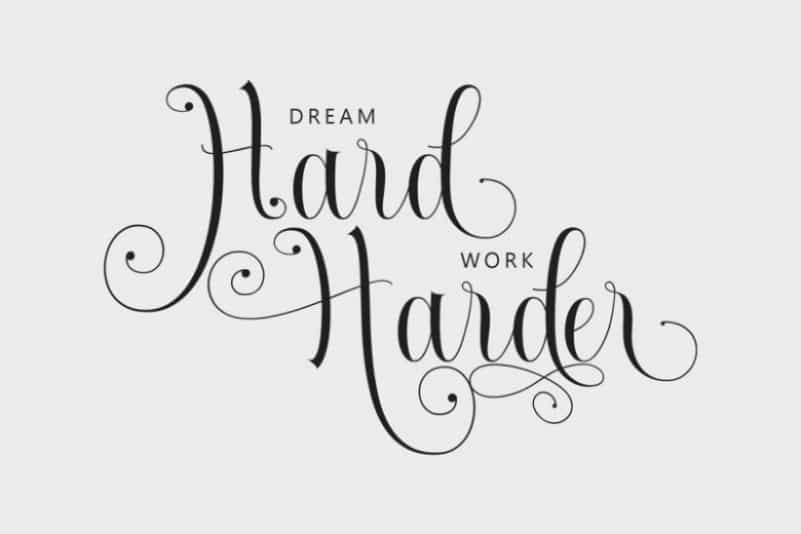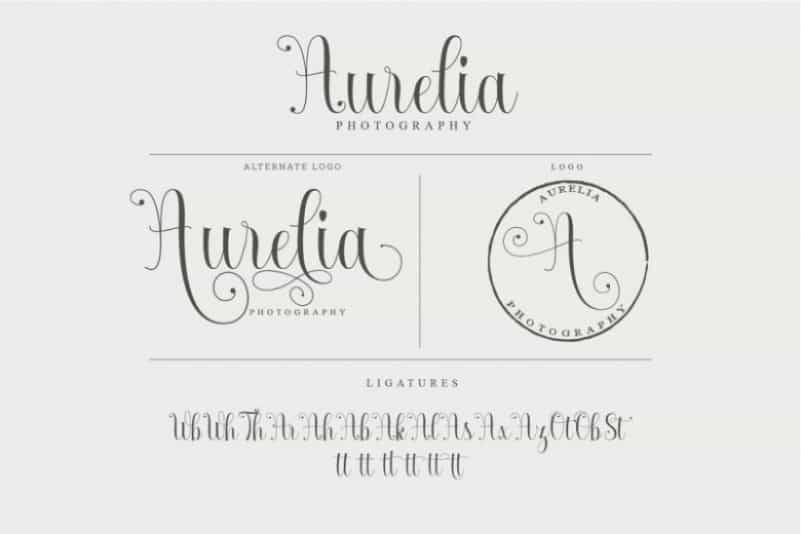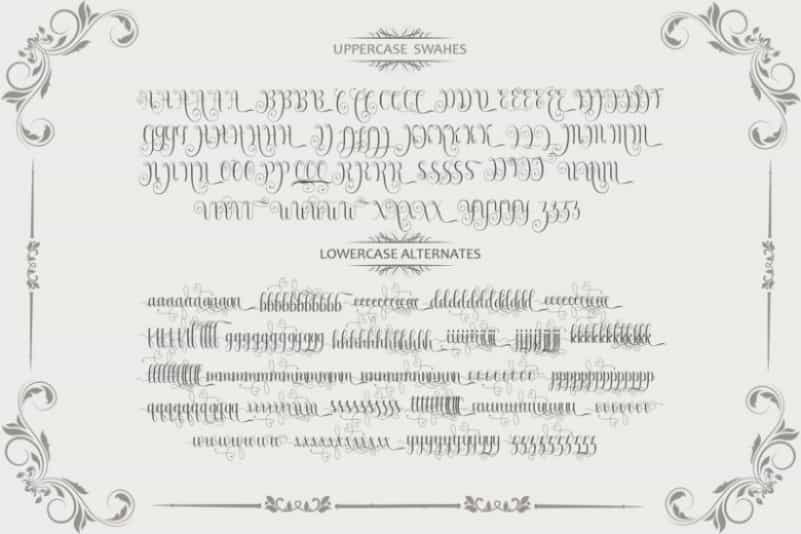
Presenting Armadilla Font. Armadilla Script Font is a type of modern calligraphy typeface which is both beautiful and unique, it is a perfect example of a calligraphic writing style. Standard ligatures Discretionary ligatures Initial Forms Terminal Forms Stylistic Alternates Stylistic sets.